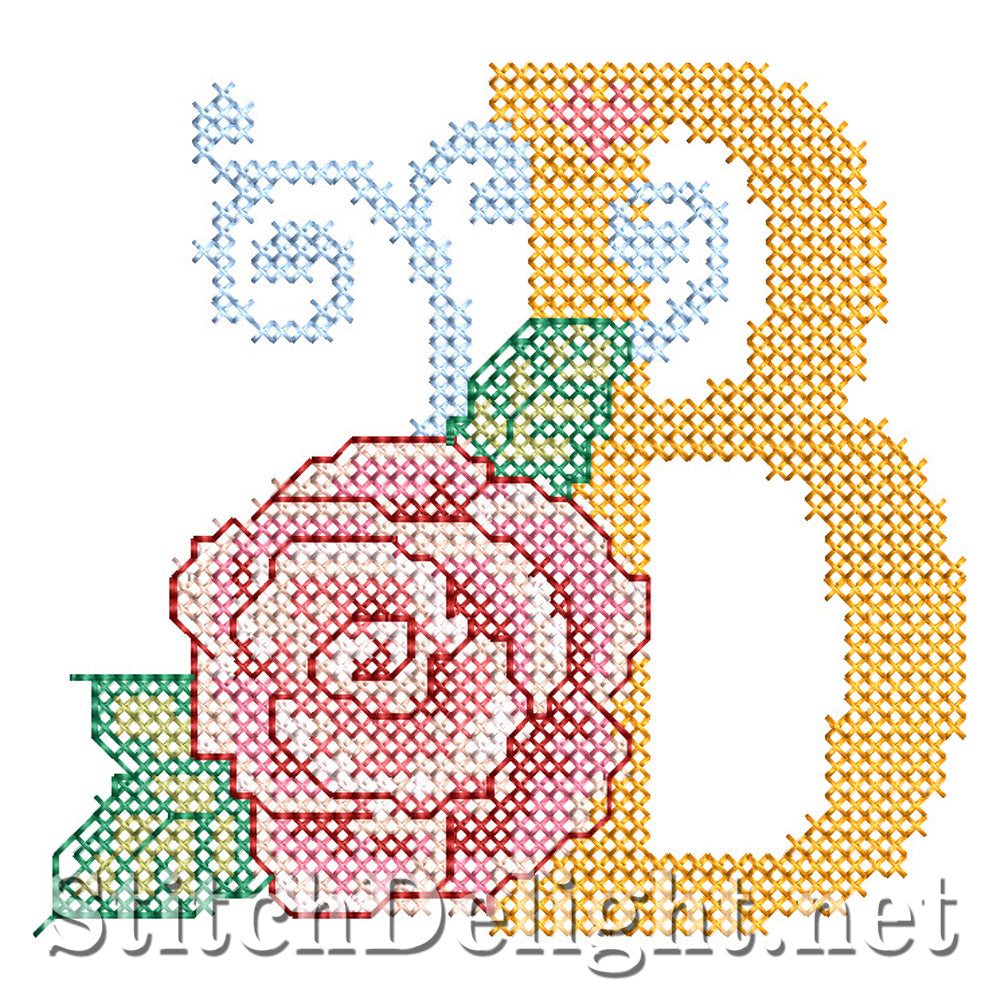
SDS4287 Rose Cross Stitch Font B
Join me in the wonder world of cross stitch on your embroidery machine and on ANY fabric of your choice.
If you are familiar with cross stitch, you get aida fabric which has a certain count – that count is the size of the little square, the higher the number the smaller the square and ultimately smaller your overall design. So the 14count is the smaller size and has smaller crosses, where as the 10count has bigger crosses, which will result in a larger overall design. This single letter is done in 14 count.